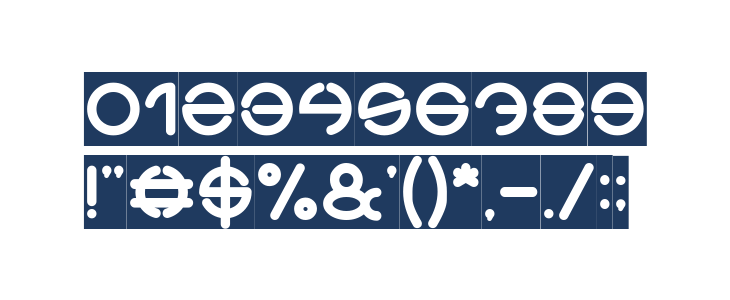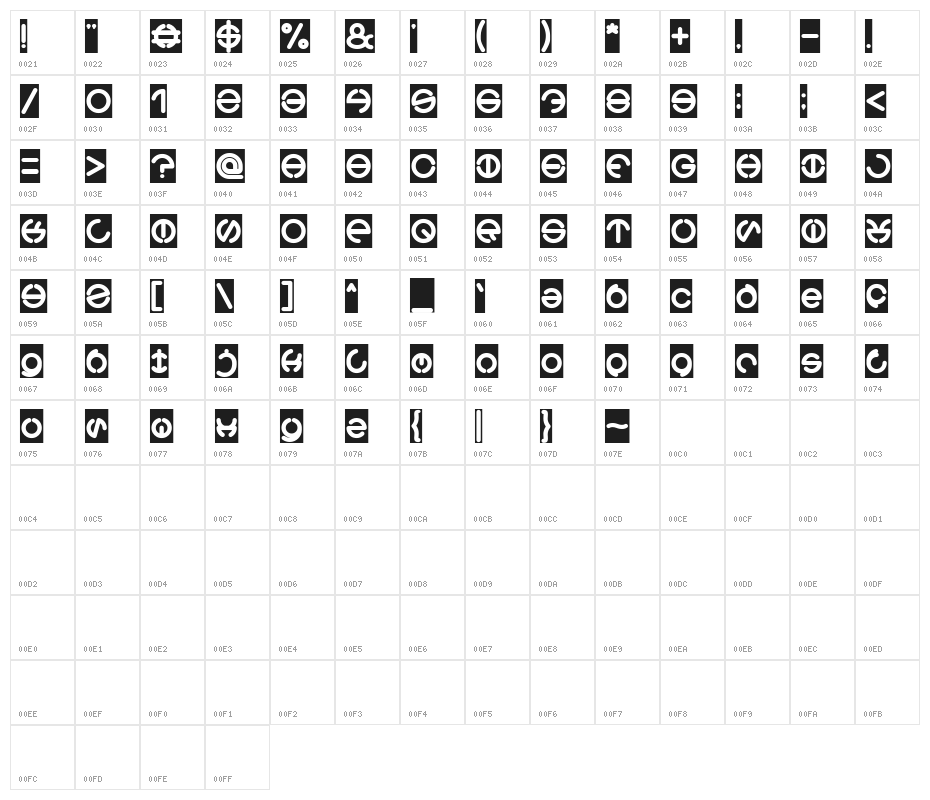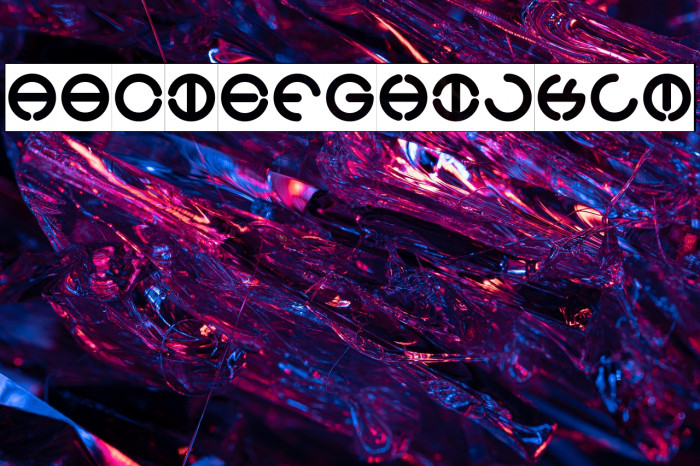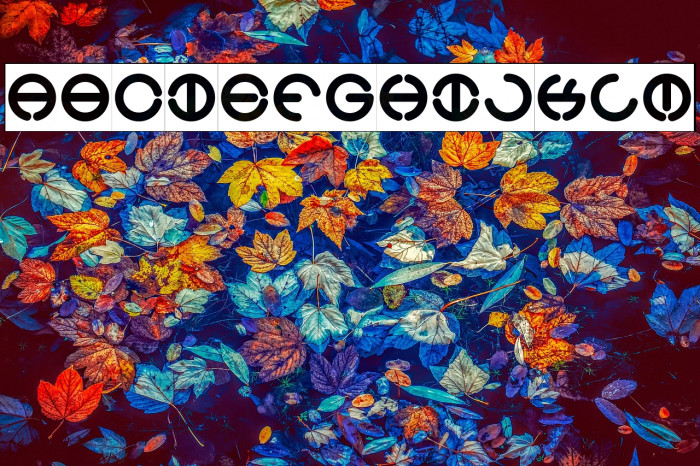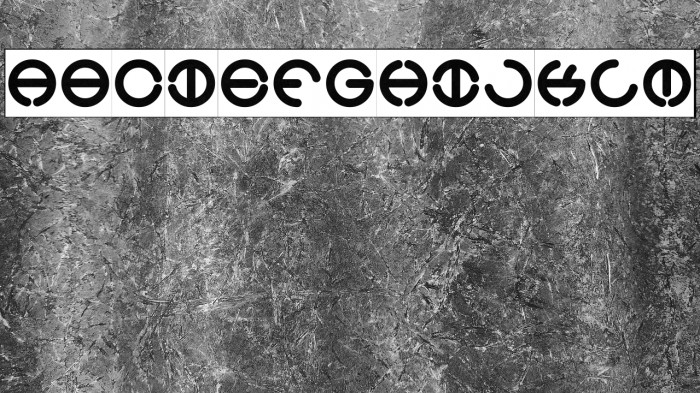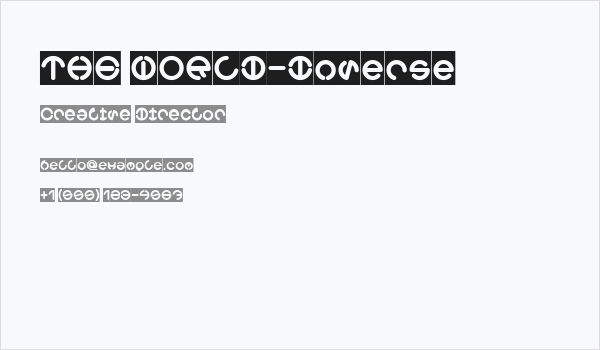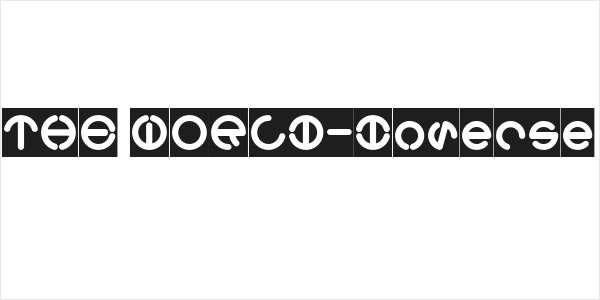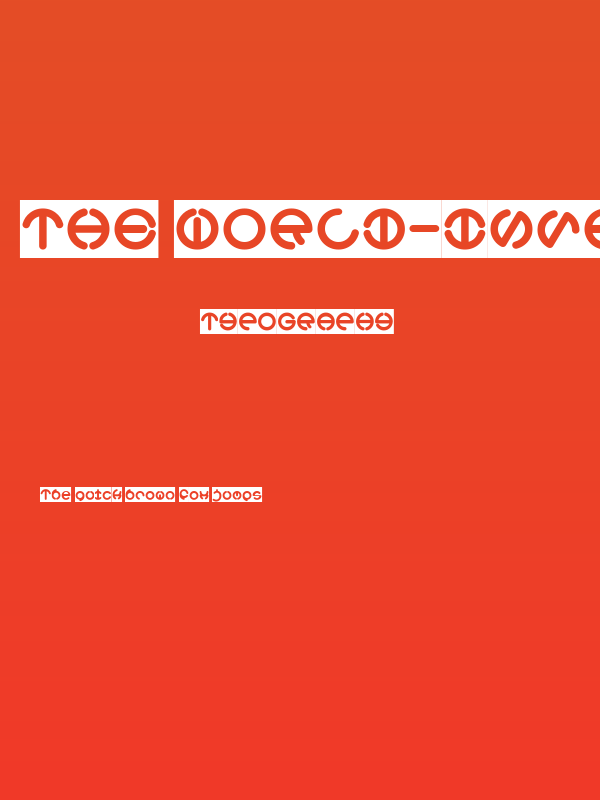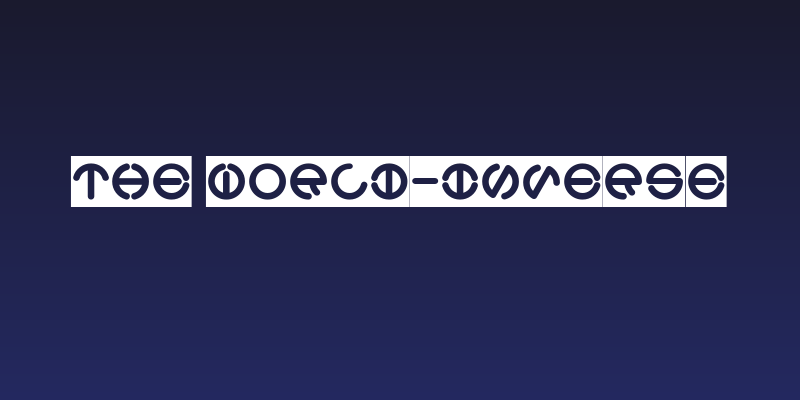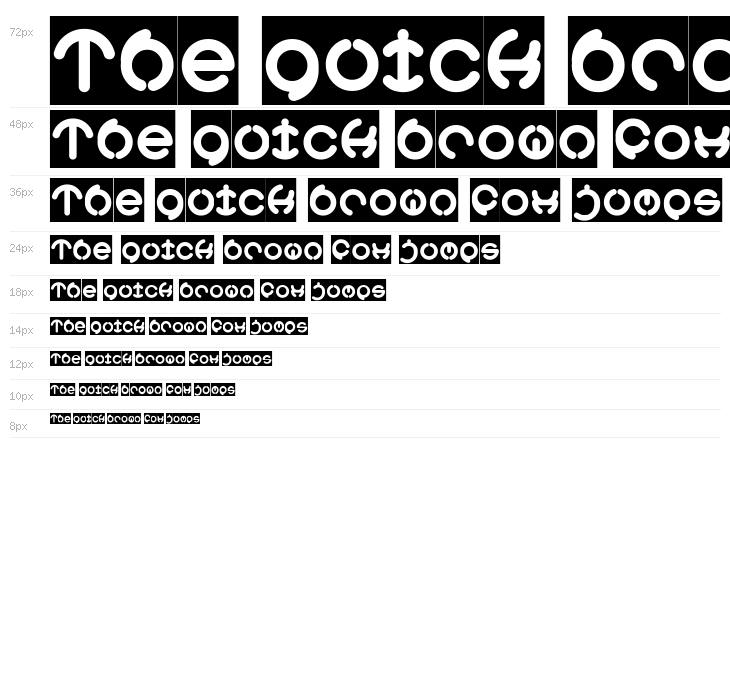
THE WORLD-Inverse Font
THE WORLD-Inverse Description
This font features a unique and modern design with a futuristic flair. Each character is crafted with a bold, circular form, incorporating negative space creatively to form the letters. The strokes are thick and consistent, providing a strong visual impact. The overall appearance is symmetrical and geometric, making it stand out as a display typeface. The special characters maintain the same bold and circular style, ensuring consistency across the font. This font is ideal for projects that require a modern and eye-catching aesthetic.
| Proposed Projects | Ideal for branding, posters, album covers, and any project needing a modern, standout look. |